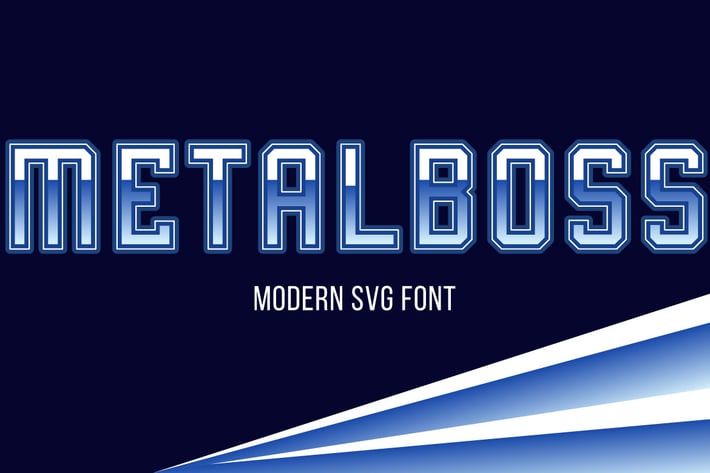
Metalboss - Modern SVG font
Hello! METALBOSS is a modern SVG font with metallic, modern and bold style.
METALBOSS can be used in any works such as flyer, book title, advertisement, social media content, logo and many more.